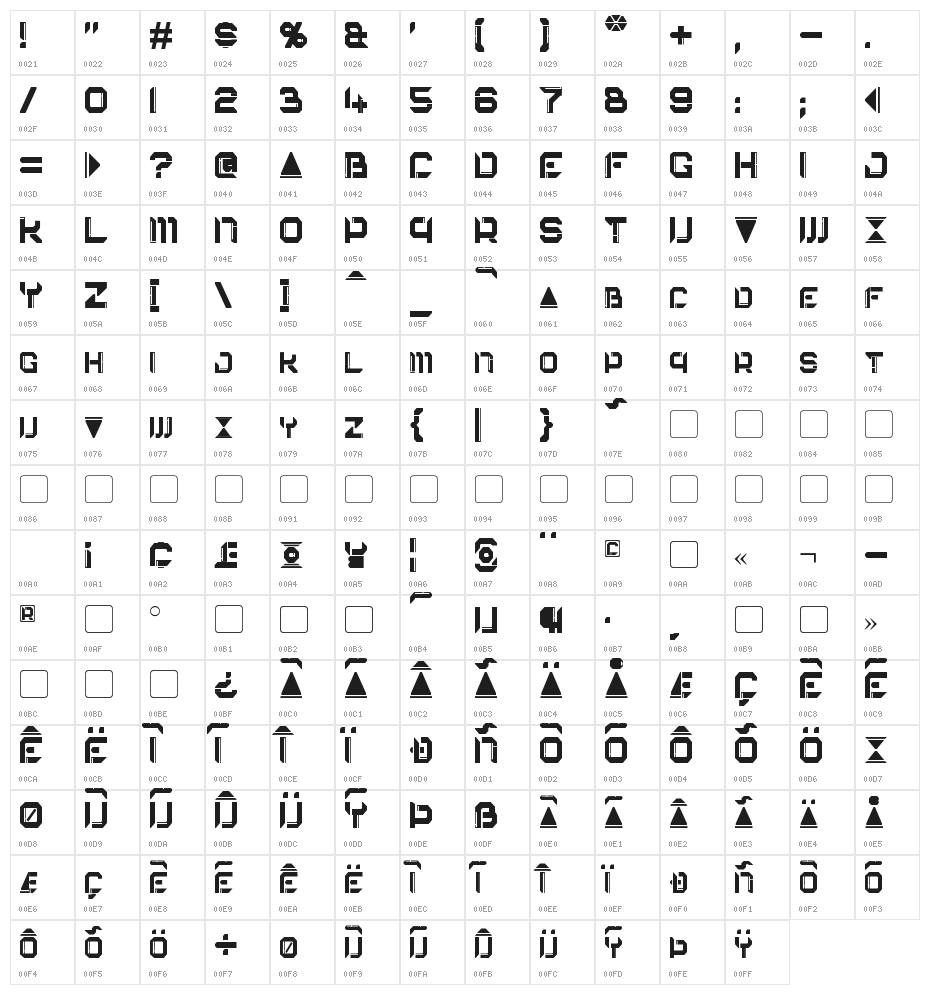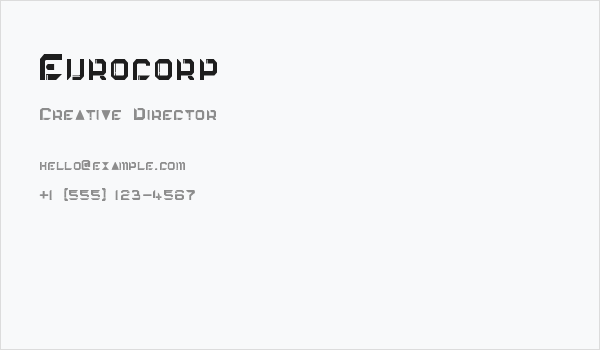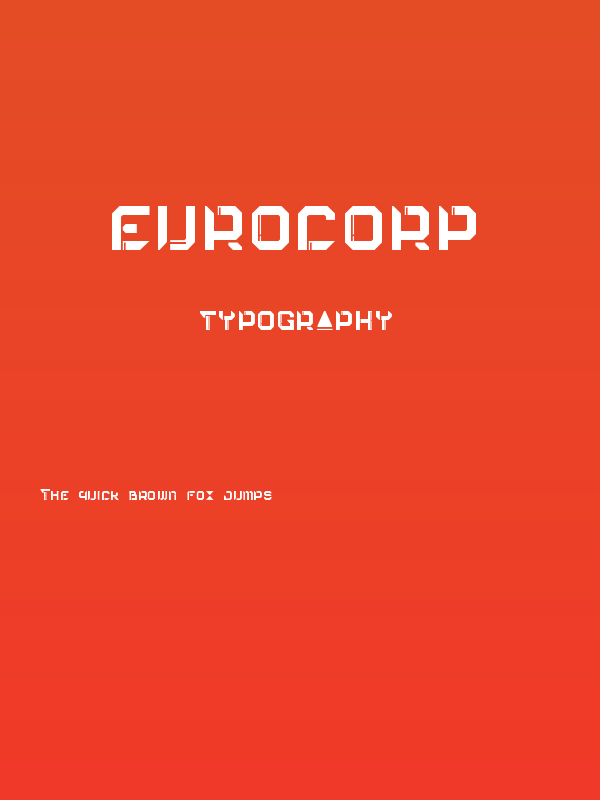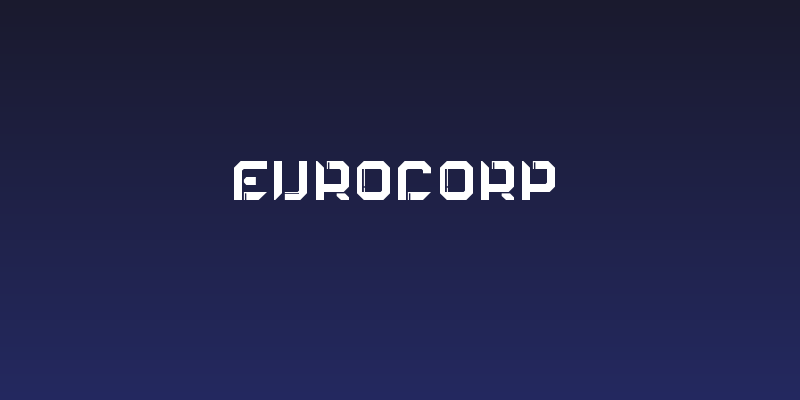
Eurocorp Font
Eurocorp Description
This font features a bold, futuristic design with geometric shapes and sharp angles. The characters are constructed with a combination of solid and cut-out sections, creating a high-tech, industrial feel. The uppercase and lowercase letters maintain a consistent style, with unique elements such as triangular and diagonal cuts that add a dynamic and edgy appearance. The numerals and special characters follow the same design principles, ensuring a cohesive look across all glyphs. This font is ideal for projects that require a modern, tech-inspired aesthetic.
| Proposed Projects | Ideal for technology branding, sci-fi movie posters, video game titles, and modern digital interfaces. |